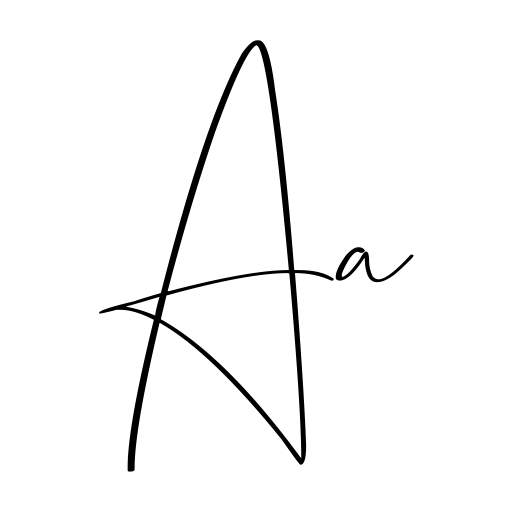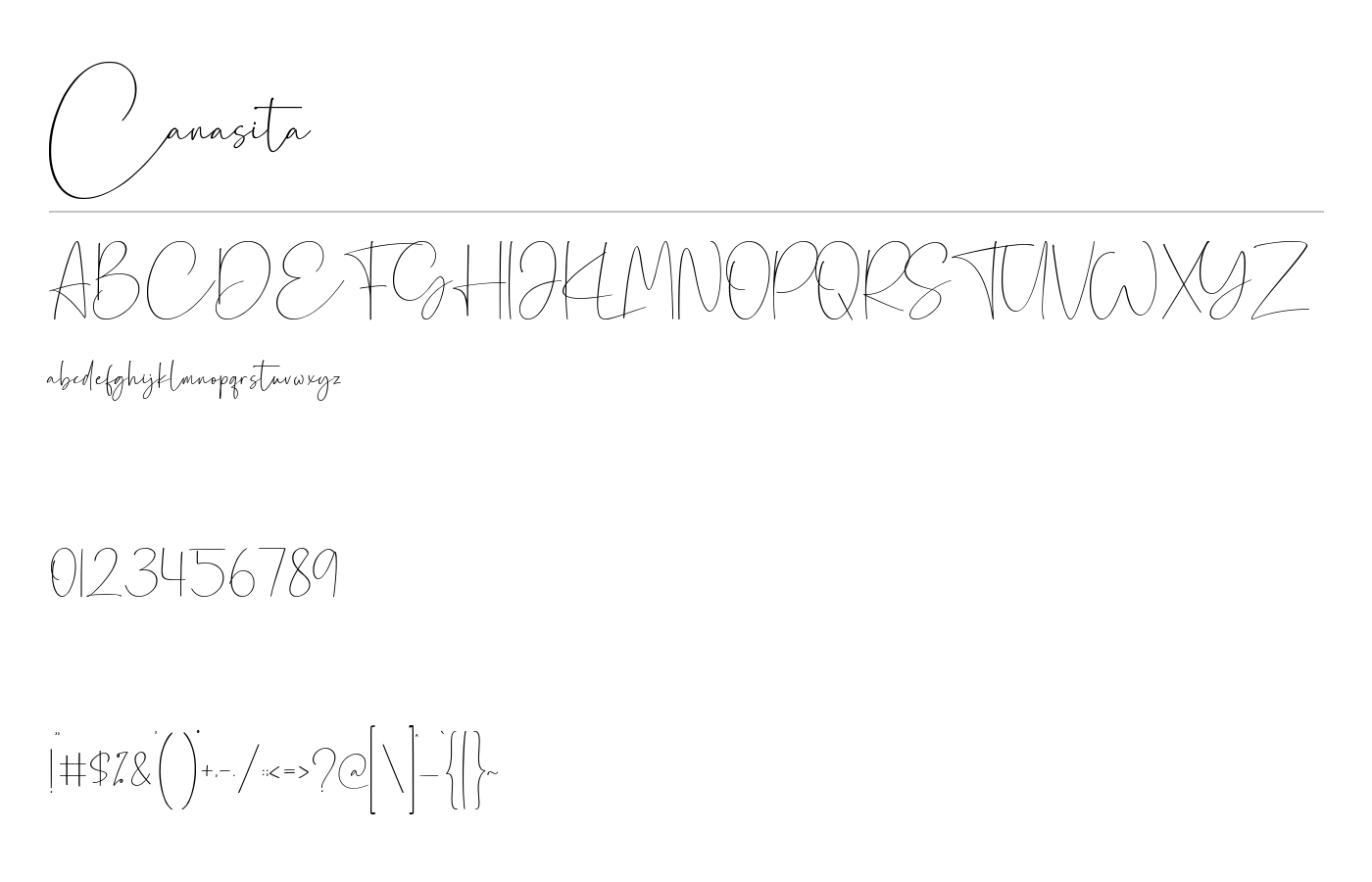
Canasita is a delicate, thin script font that combines a handwritten feel with an airy, modern elegance. Its tall, narrow letterforms and subtle flowing strokes convey a sense of sophistication and creativity, making it ideal for stylish branding, personal invitations, and feminine editorial designs. This font’s light and graceful appearance adds a touch of charm and refinement to any project where a soft, artistic vibe is desired.
Canasita Font
About Canasita Font